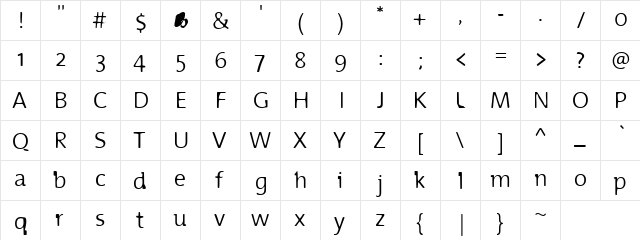
Adipolis
Design Context for Adipolis Typeface
Adipolis is a composed and adaptable typeface that performs quietly and consistently across a wide range of design contexts.